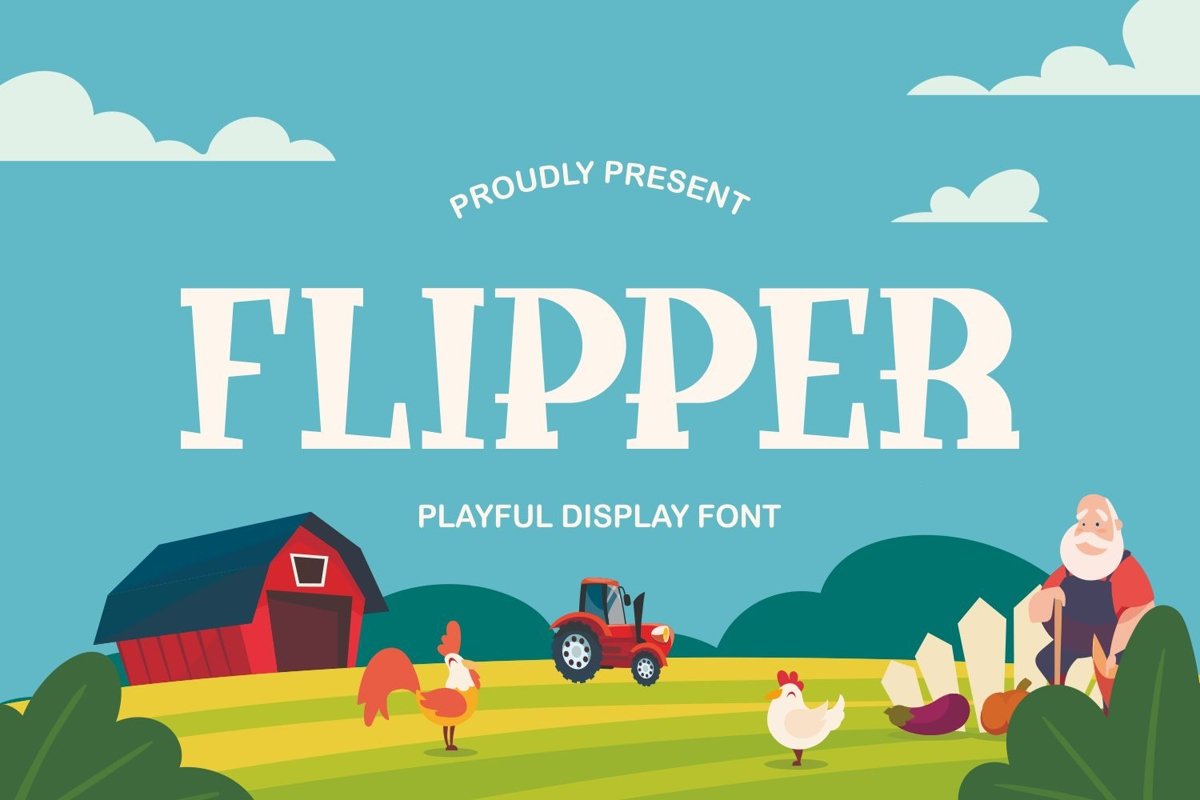
Flipper is a serif display come with fun and playful themes. This font have unique contrast weight shapes. It matches applies in some designs such as the logotype, brand, packaging, quotes, poster, t-shirt, book cover, birthday invitation and more custom design. The features uppercase, lowercase, numeral, punctuation & symbol, multilingual support, PUA encoded (fully accessible without additional design software).